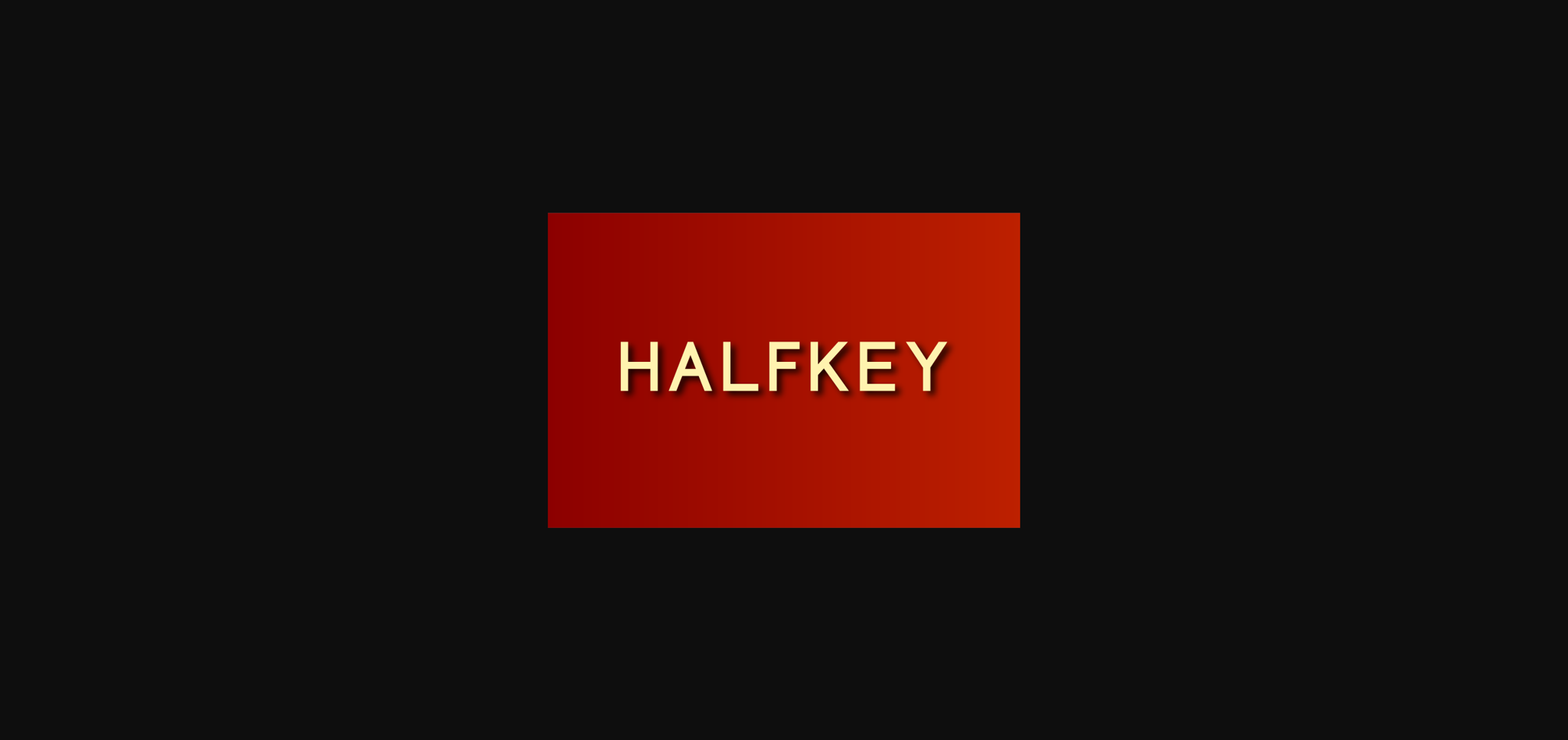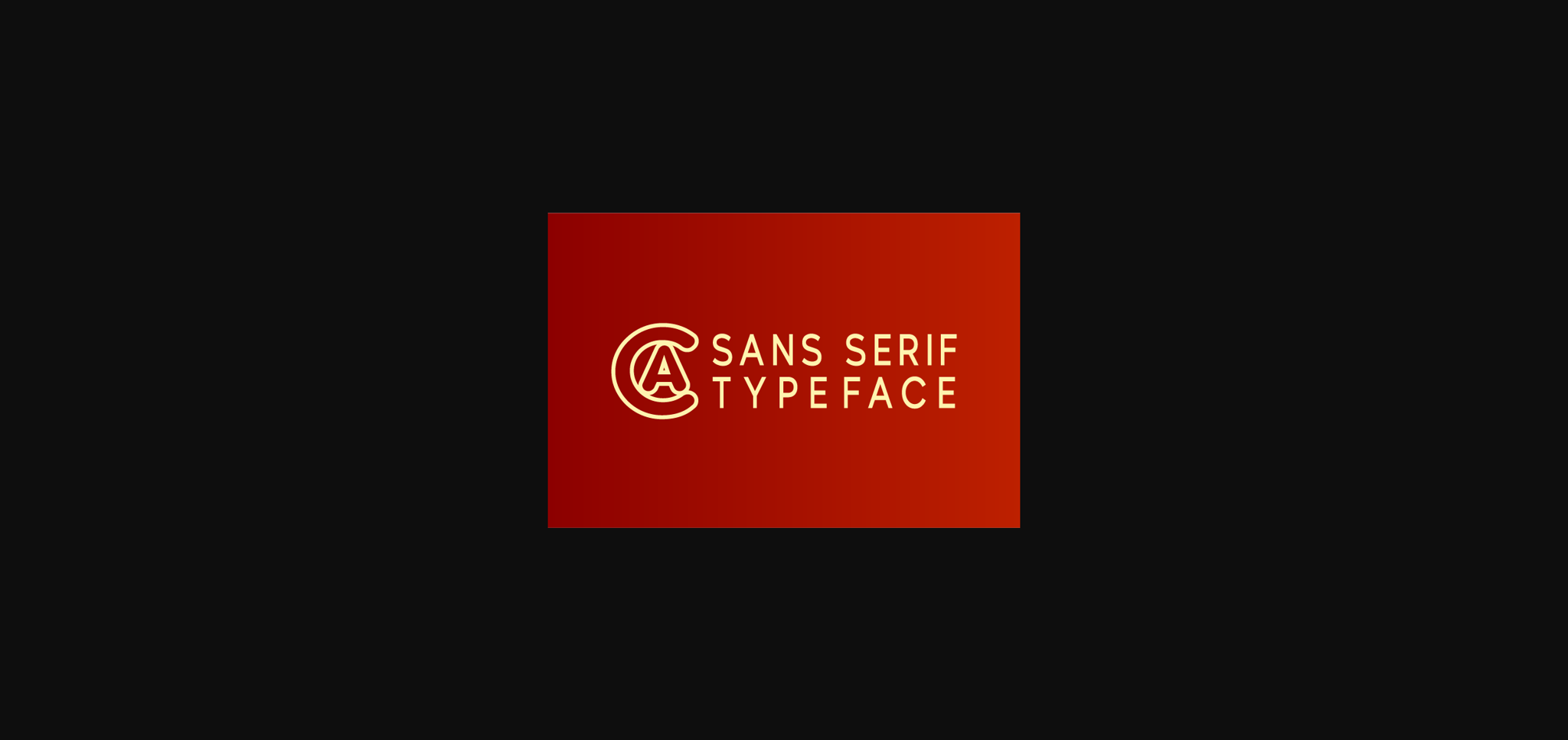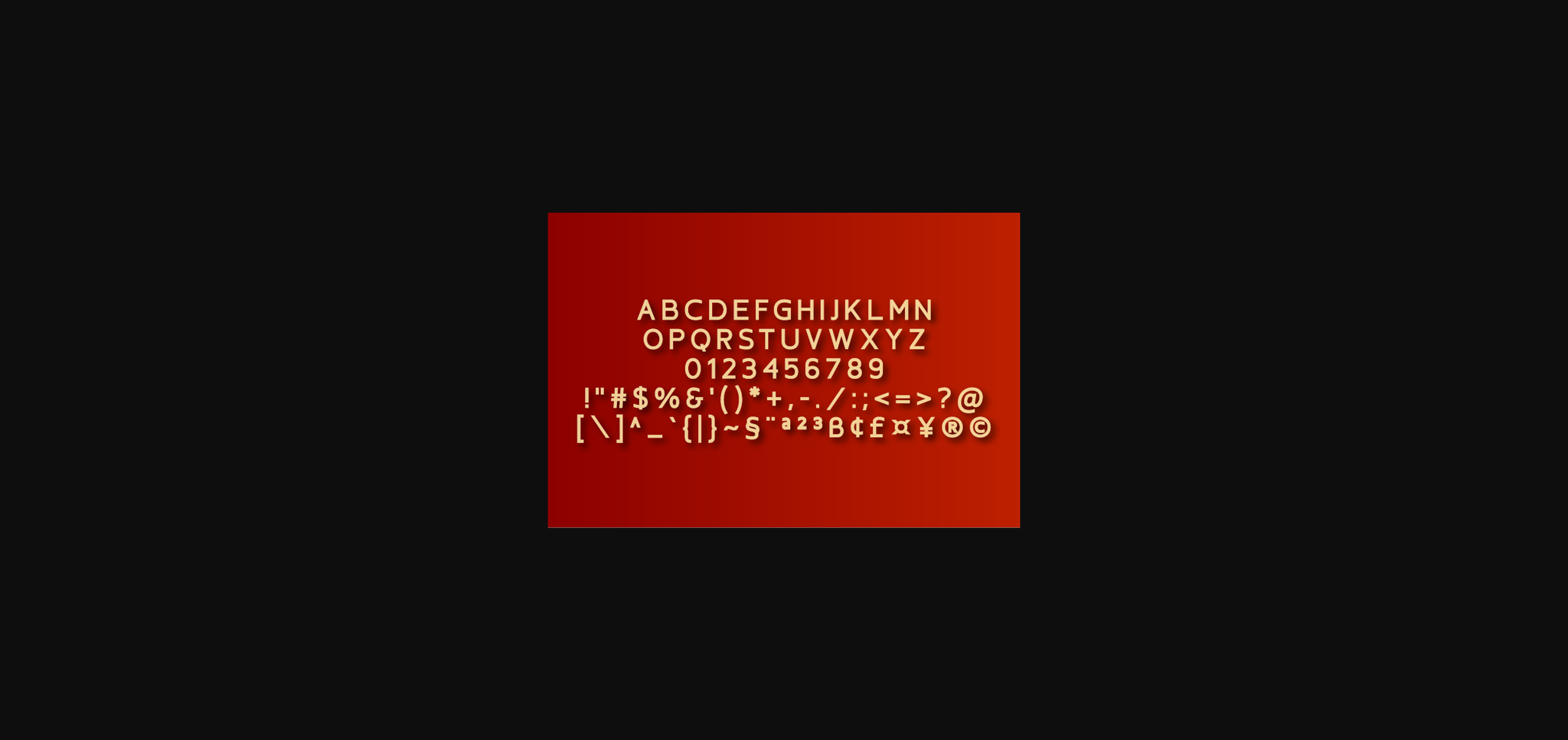
About Halfkey Font
Halfkey is a modern, classy sans serif typeface that contains upper characters, number 0-9 and a range of punctuation and symbols.
An extremely versatile font, perfect for logos, weddings, invitations, quotes, advertisements, print, magazines, and more!